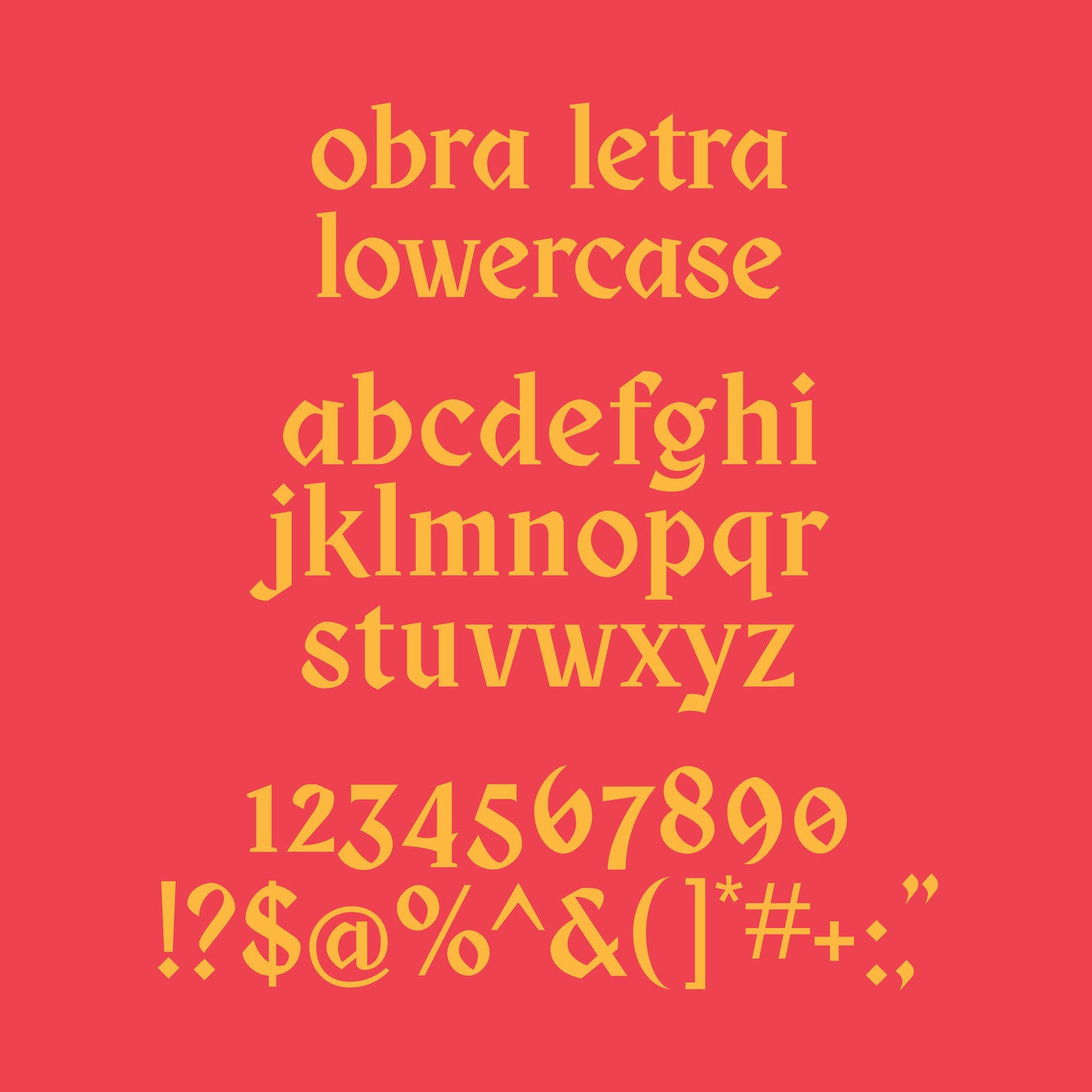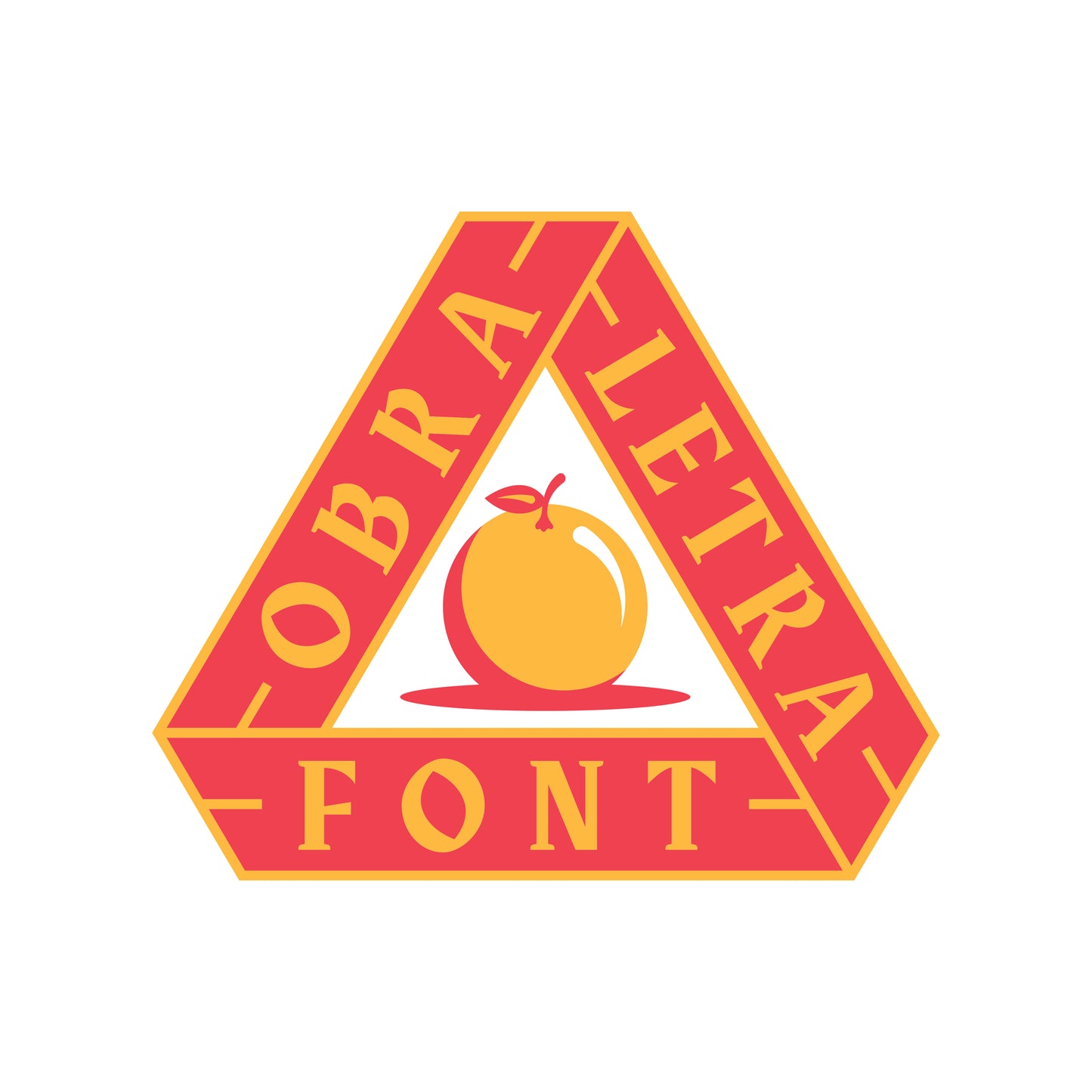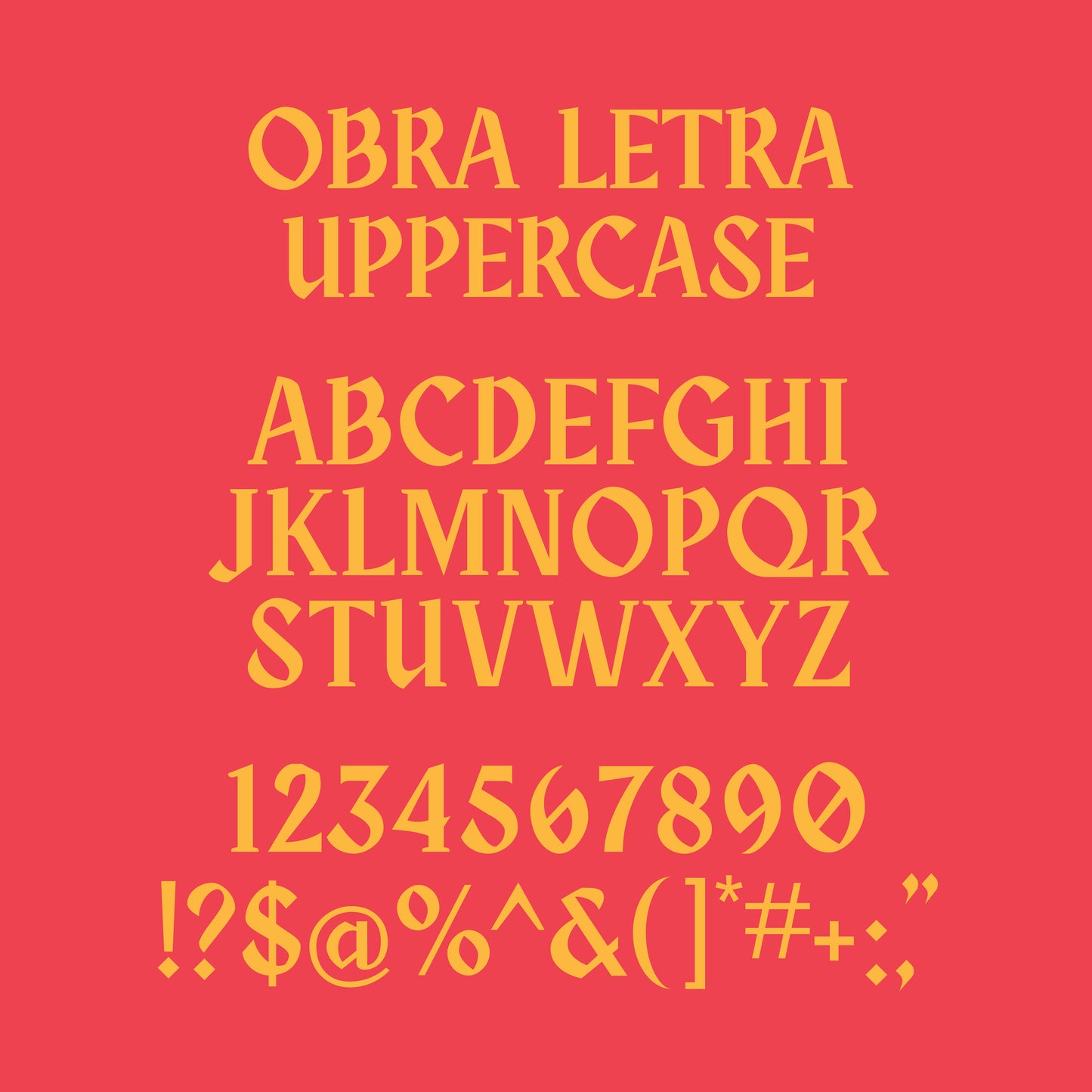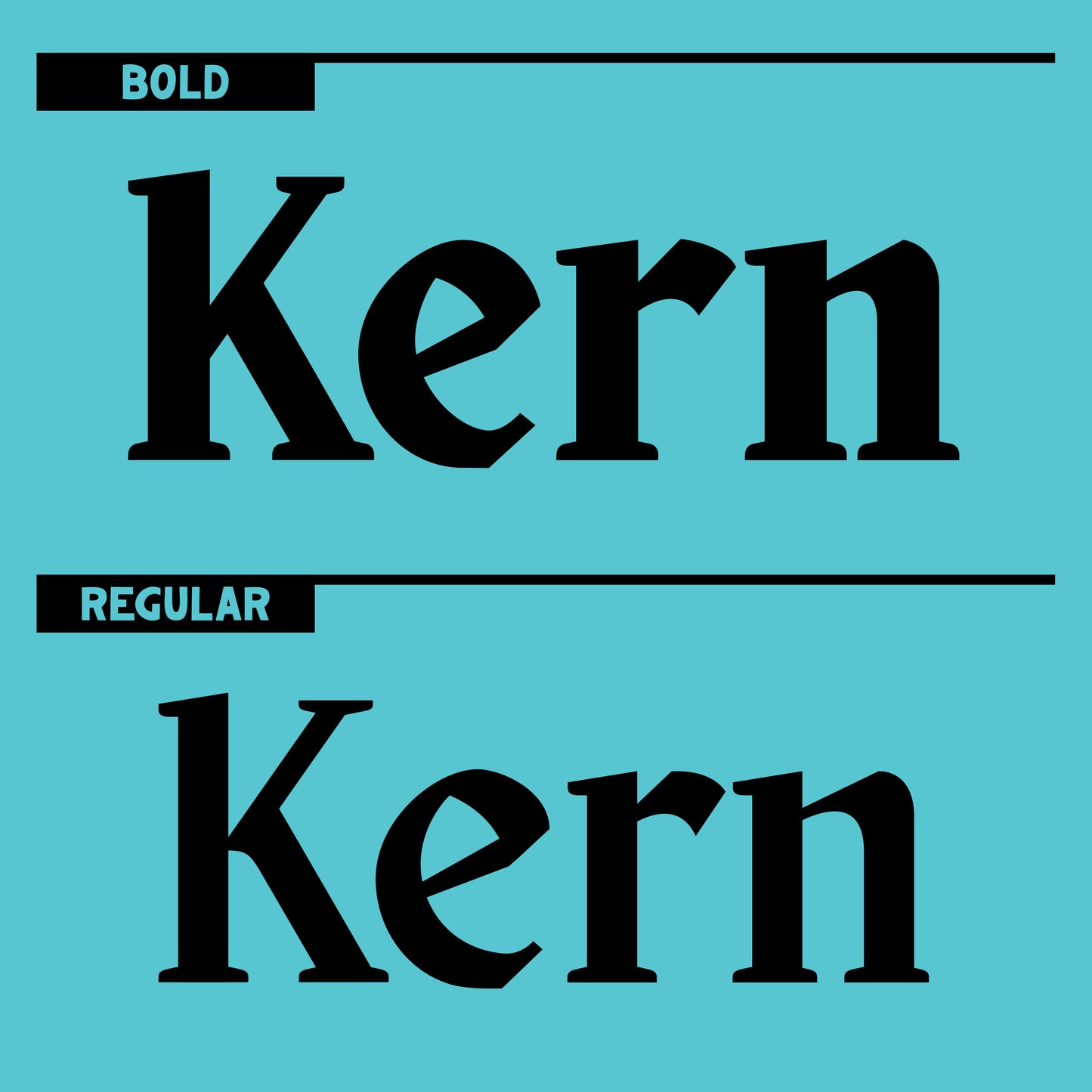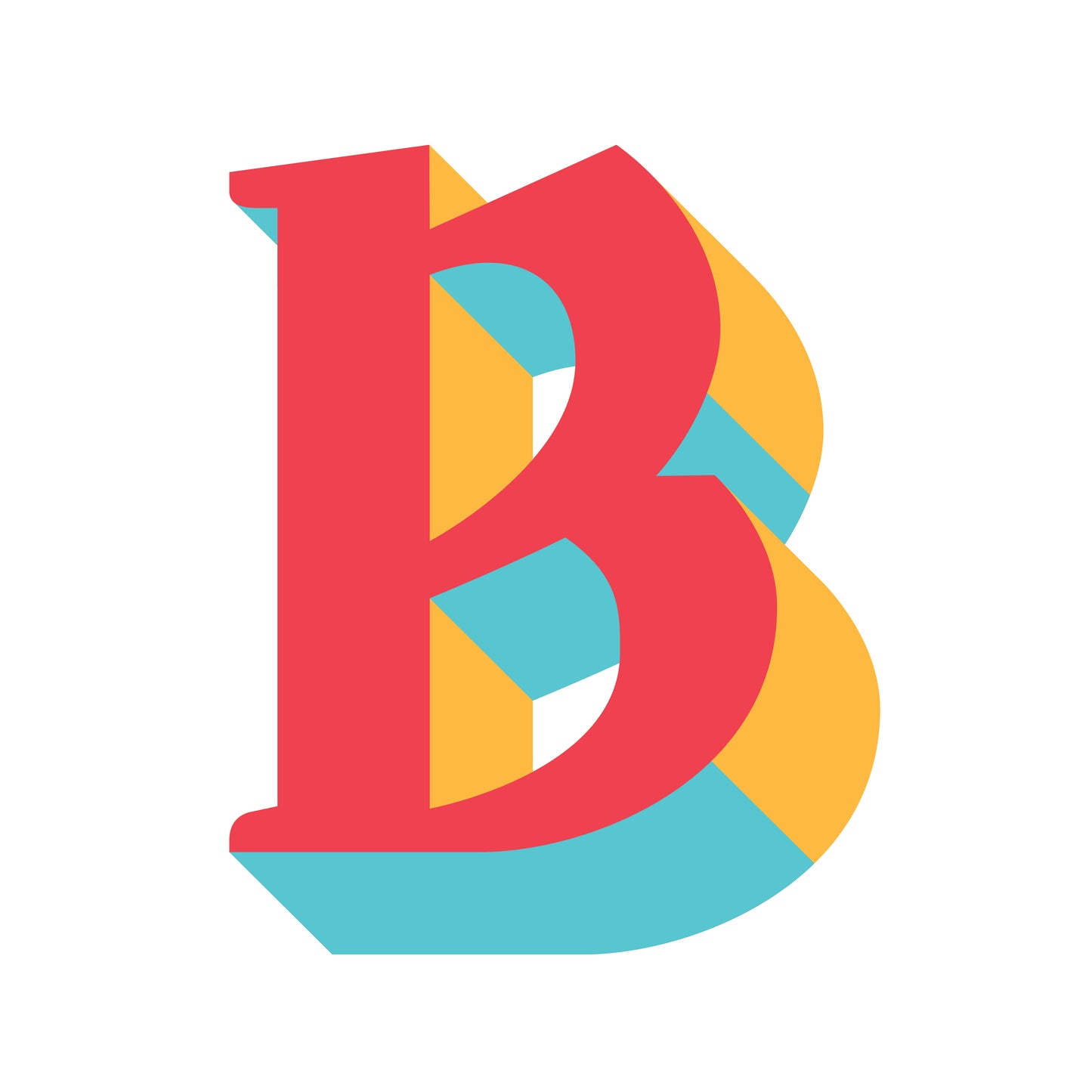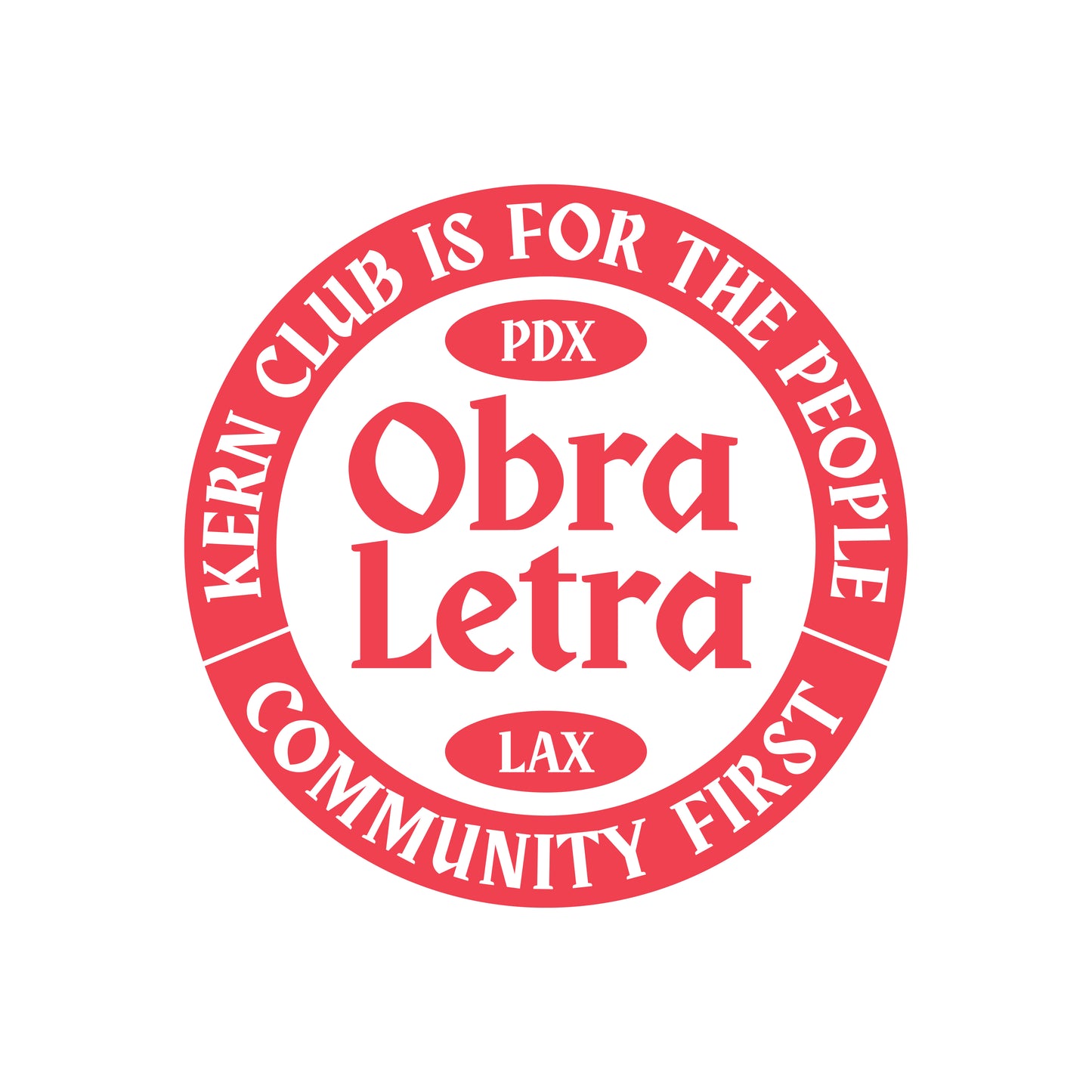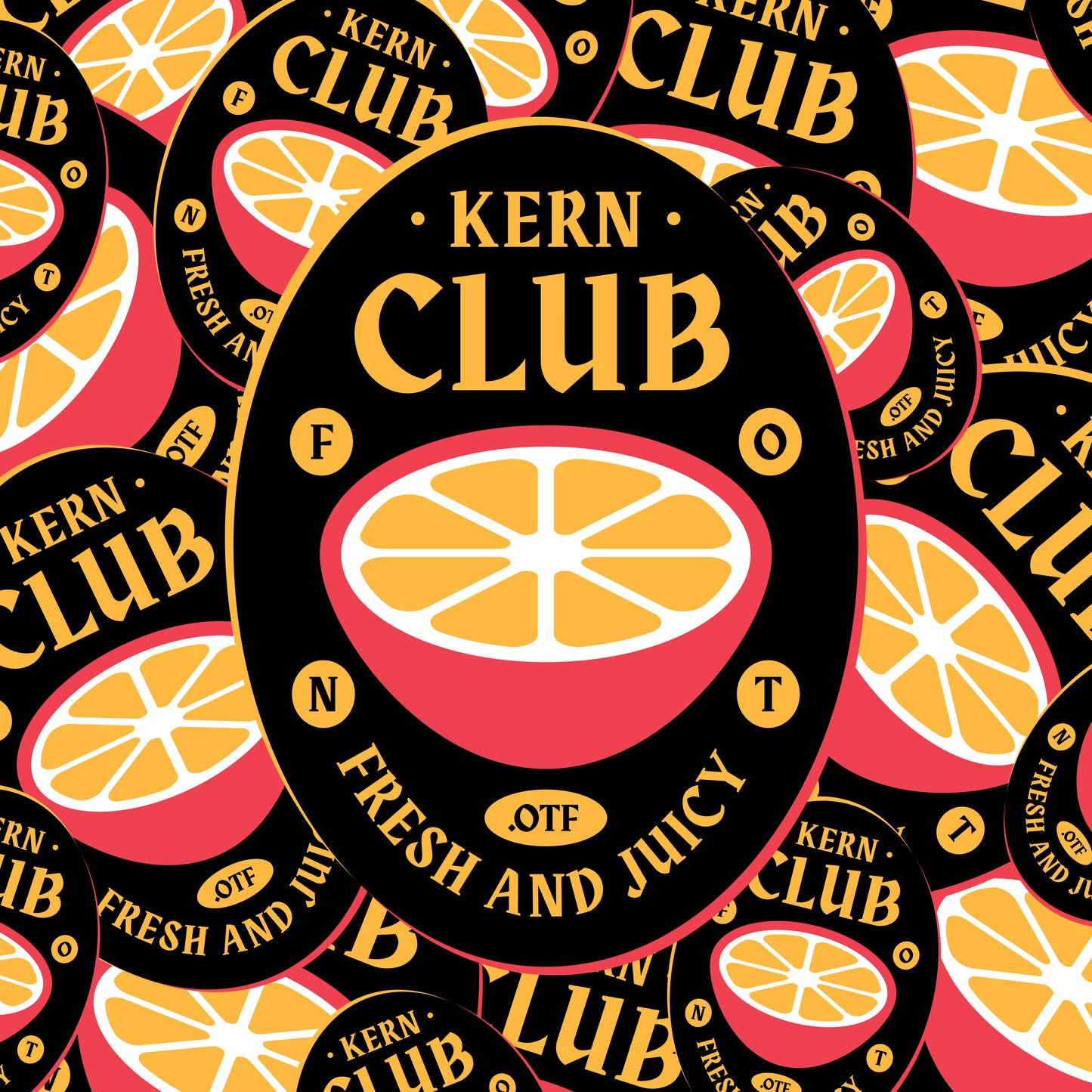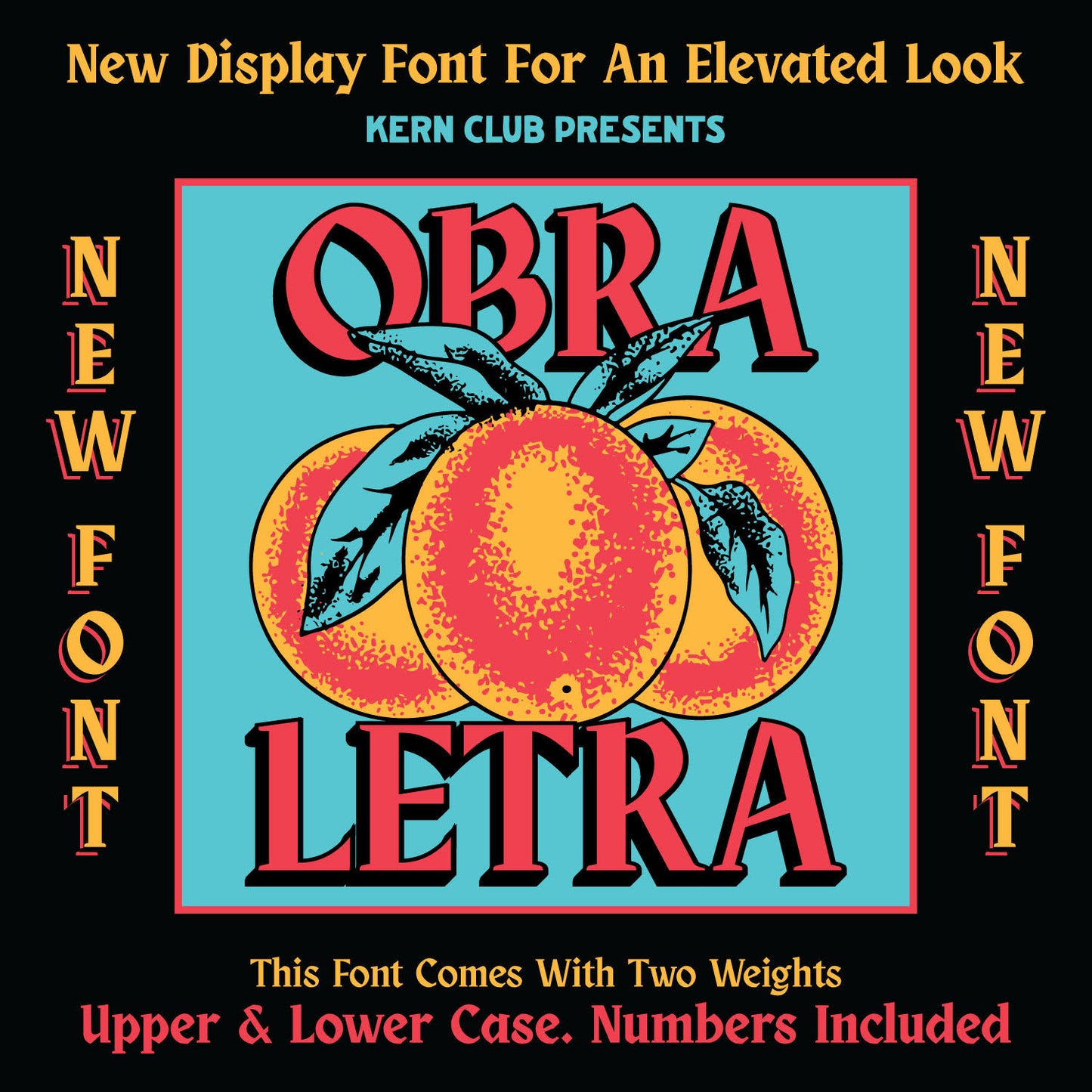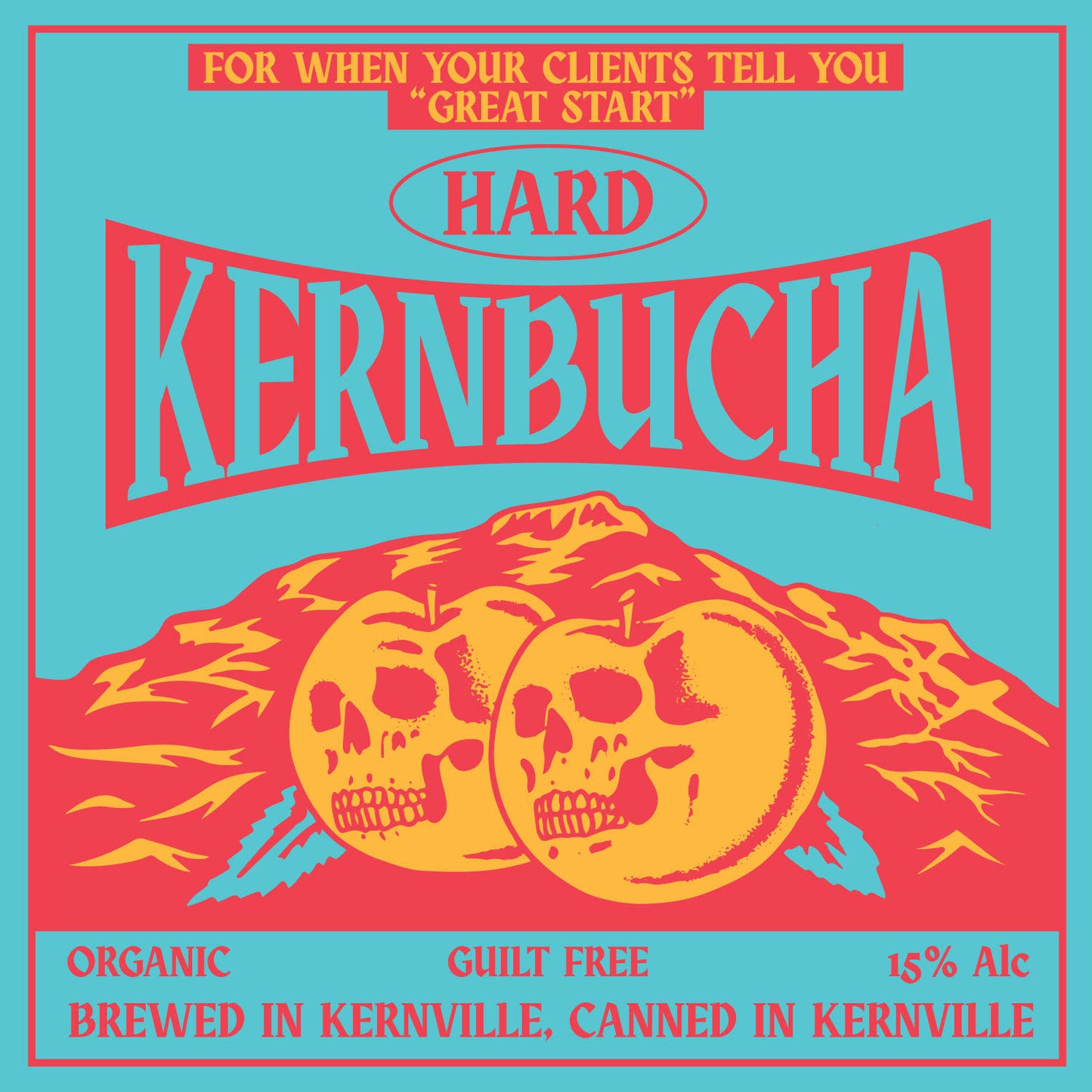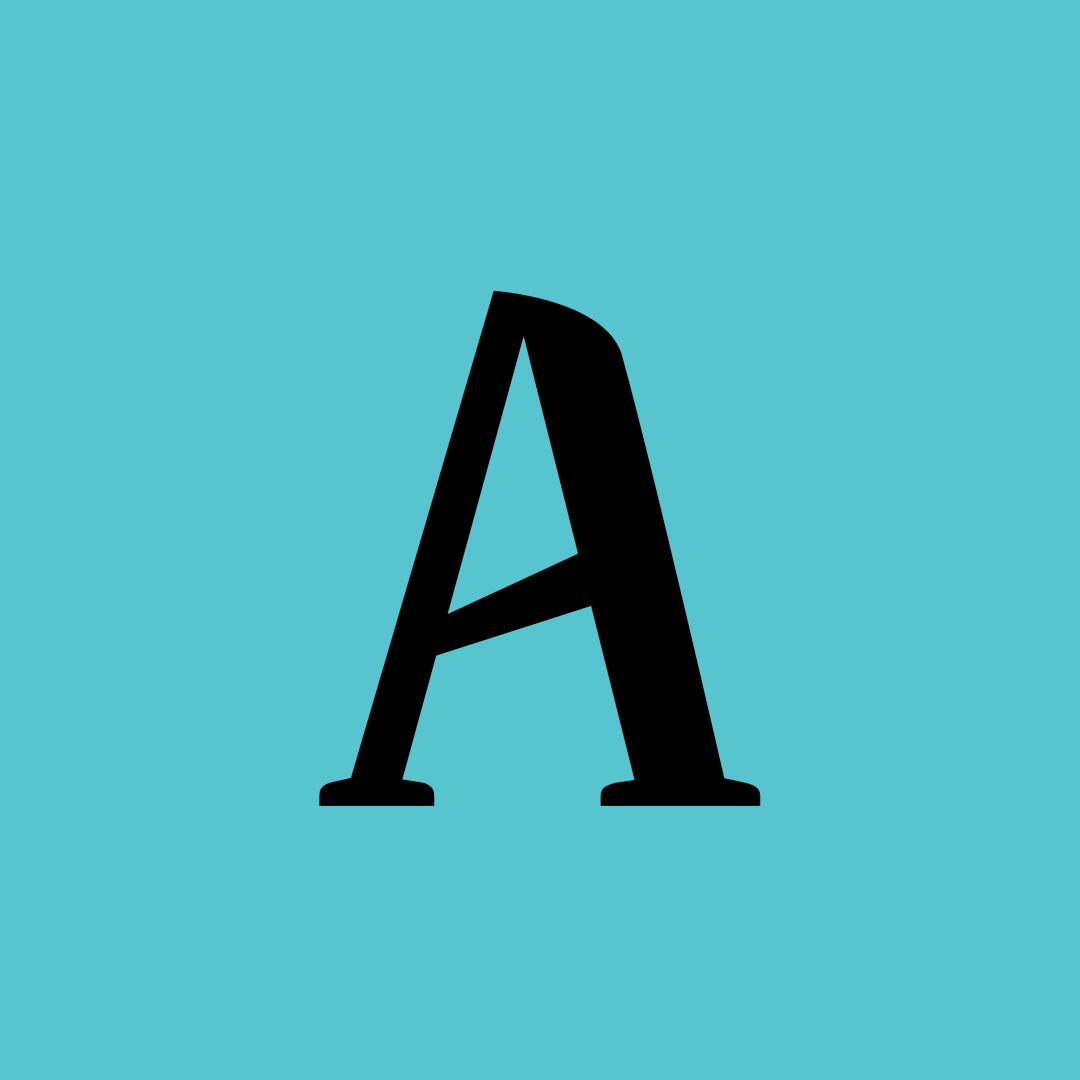
Obra Letra Font
Clean serif font with a unique vibe designed by Lorenzo Martinez
- Lowercase Character Set a-z
- Includes bold, and regular versions (2 fonts)